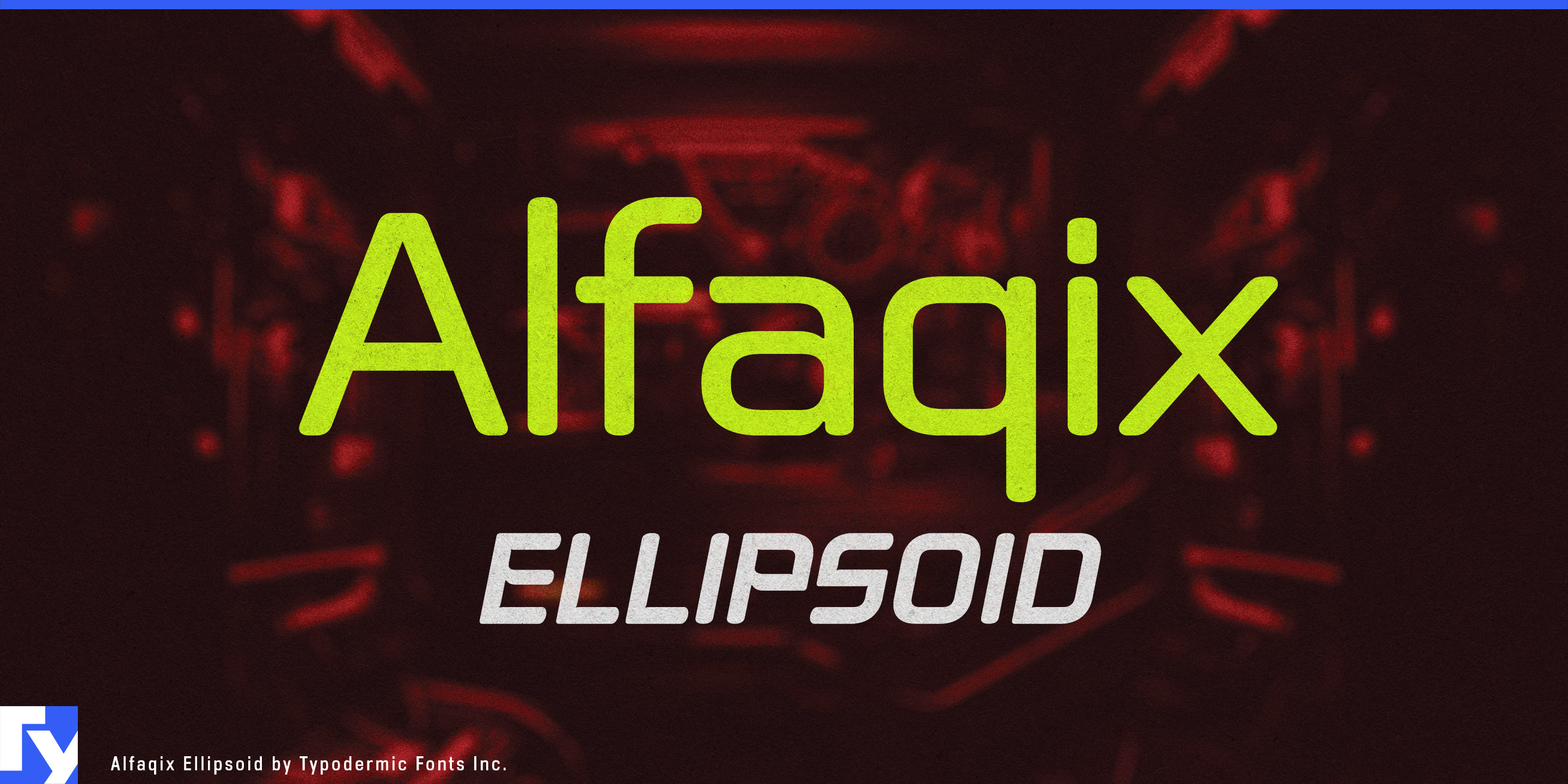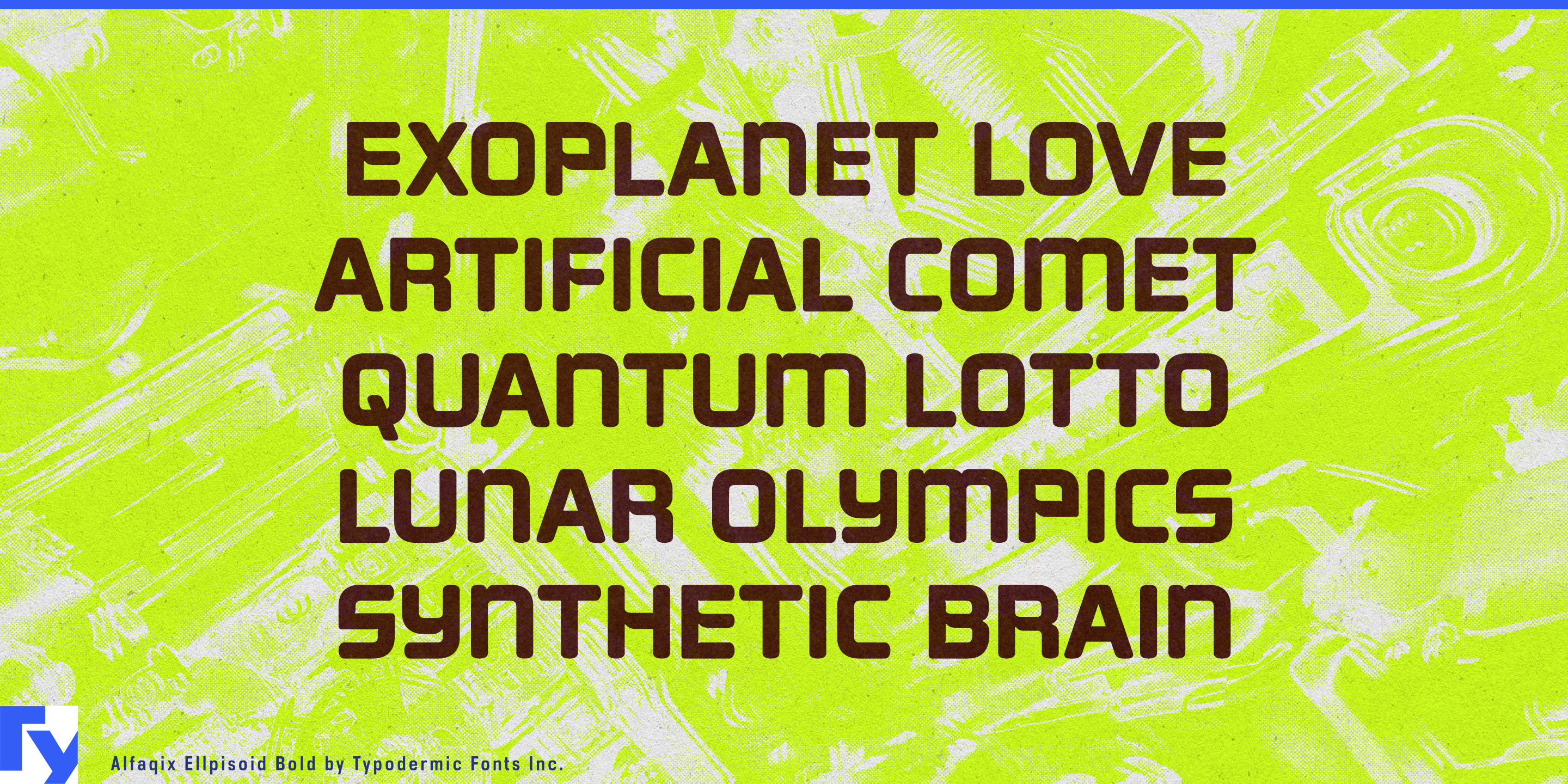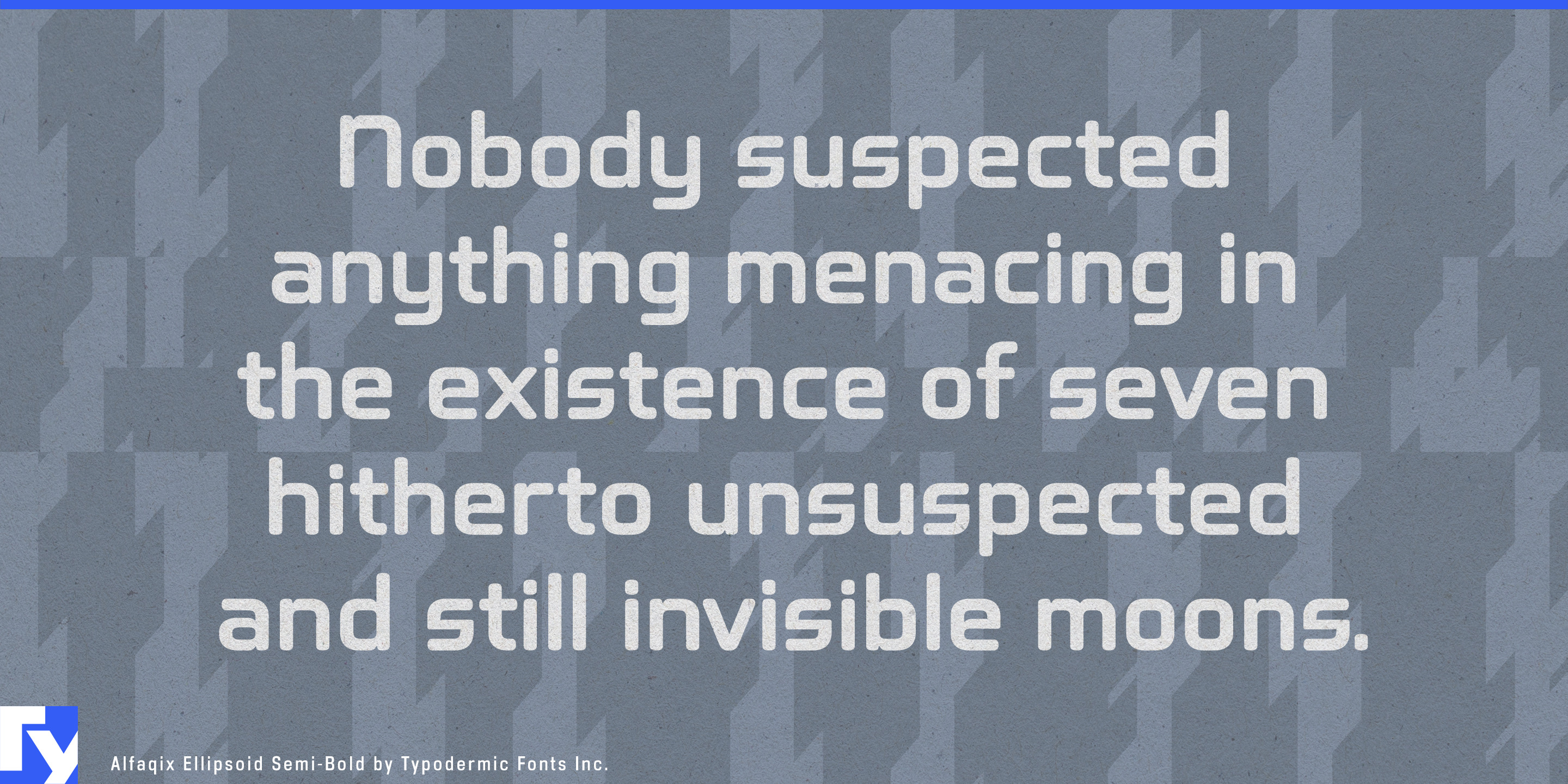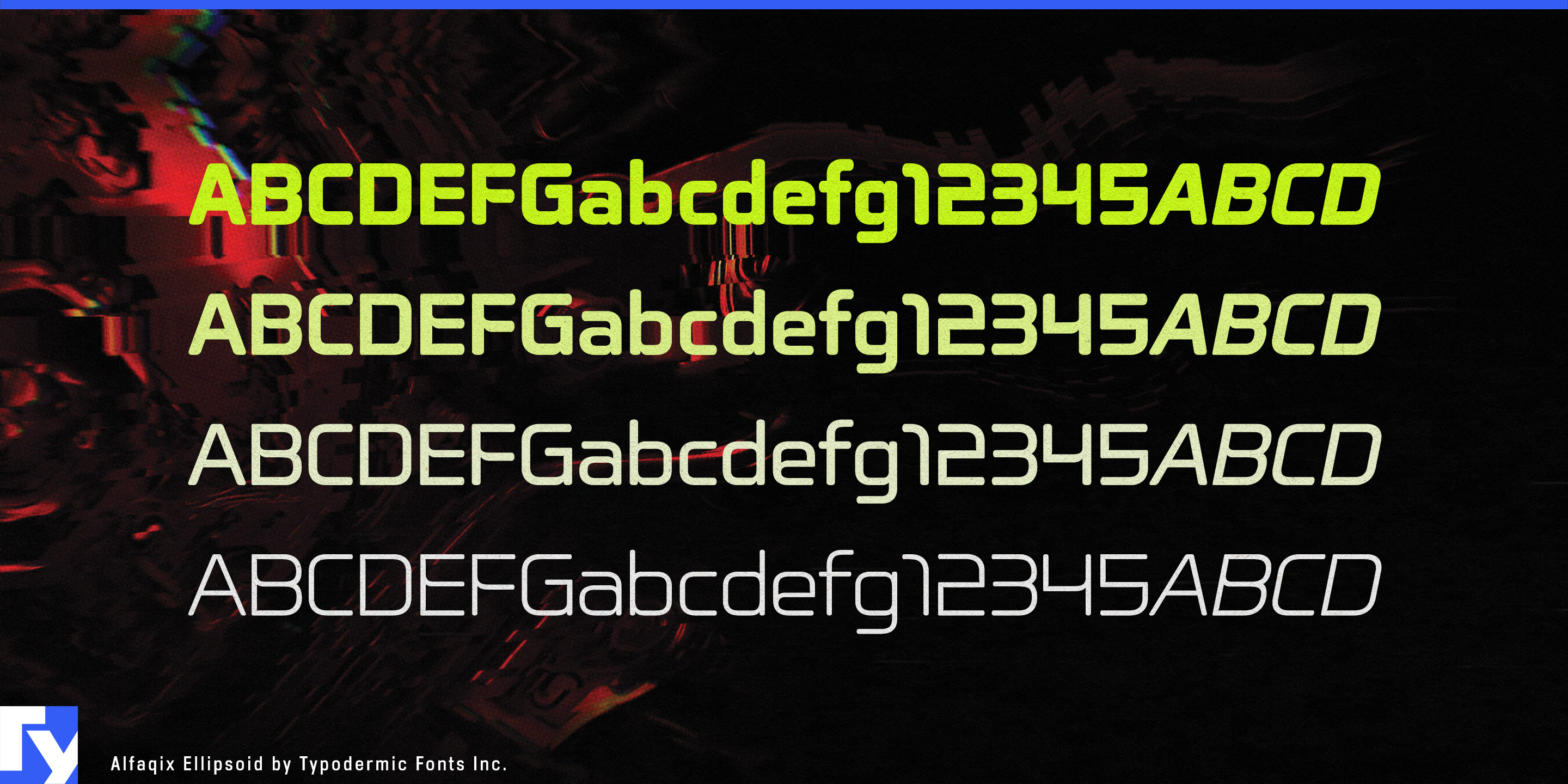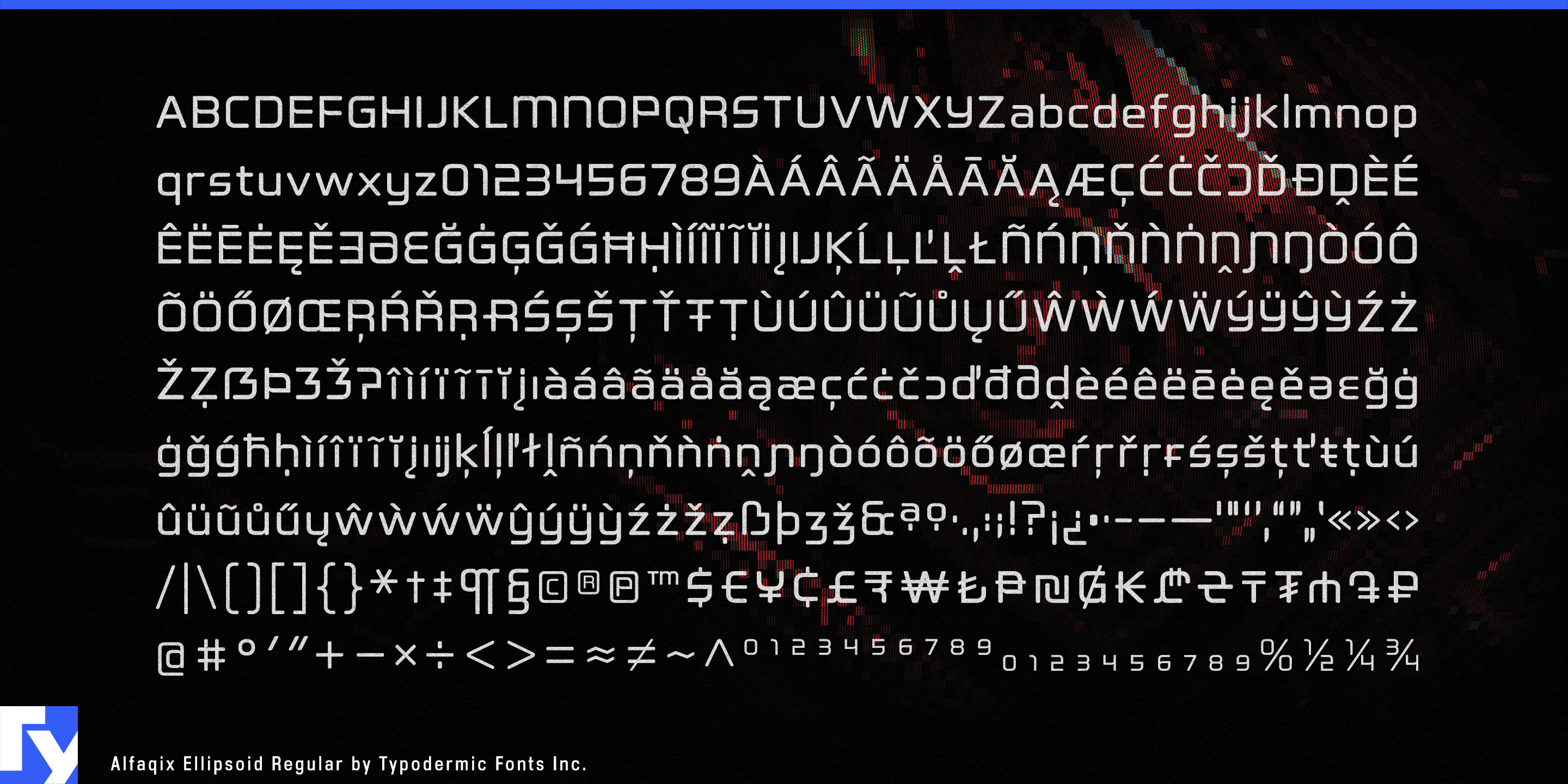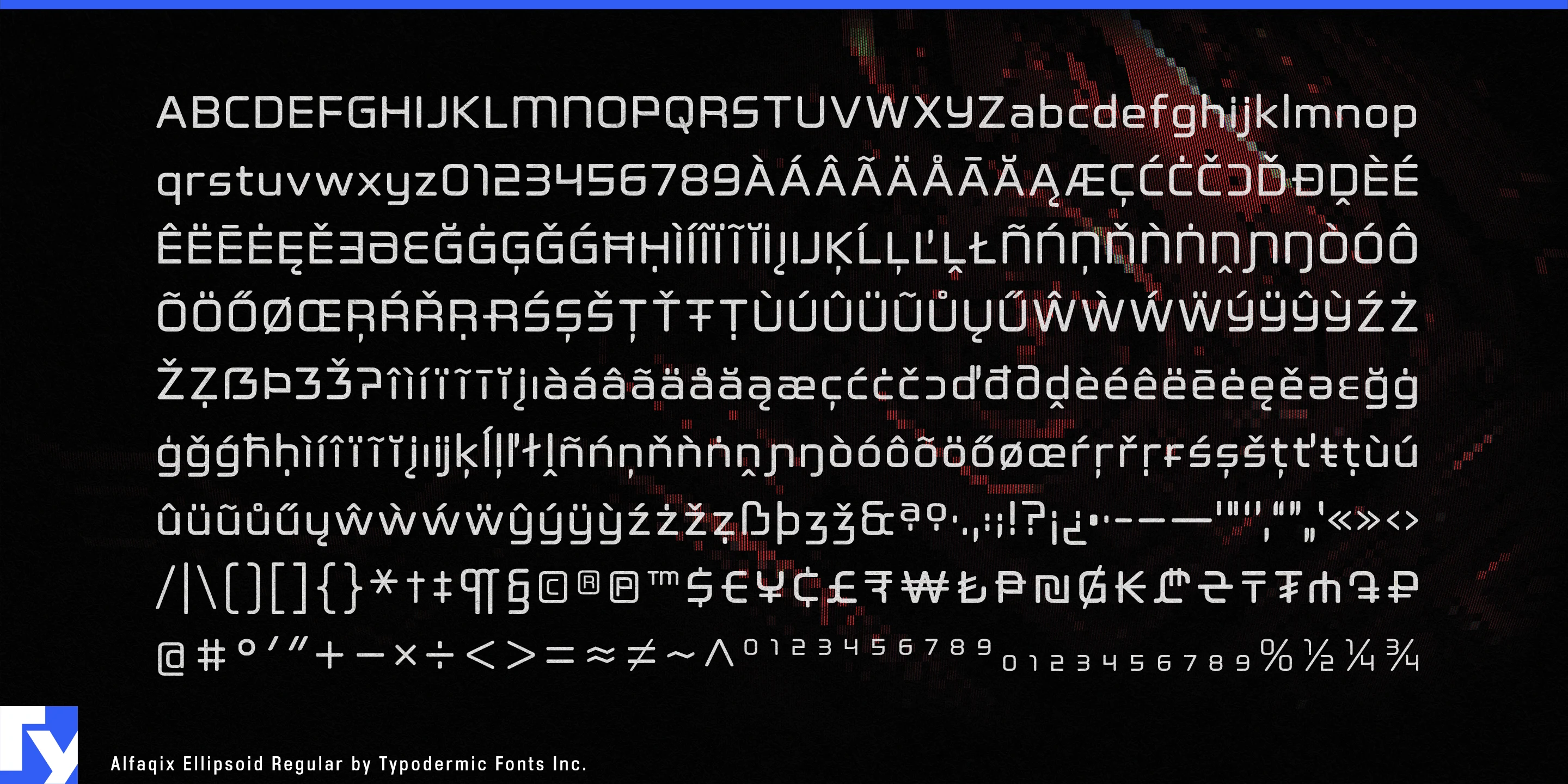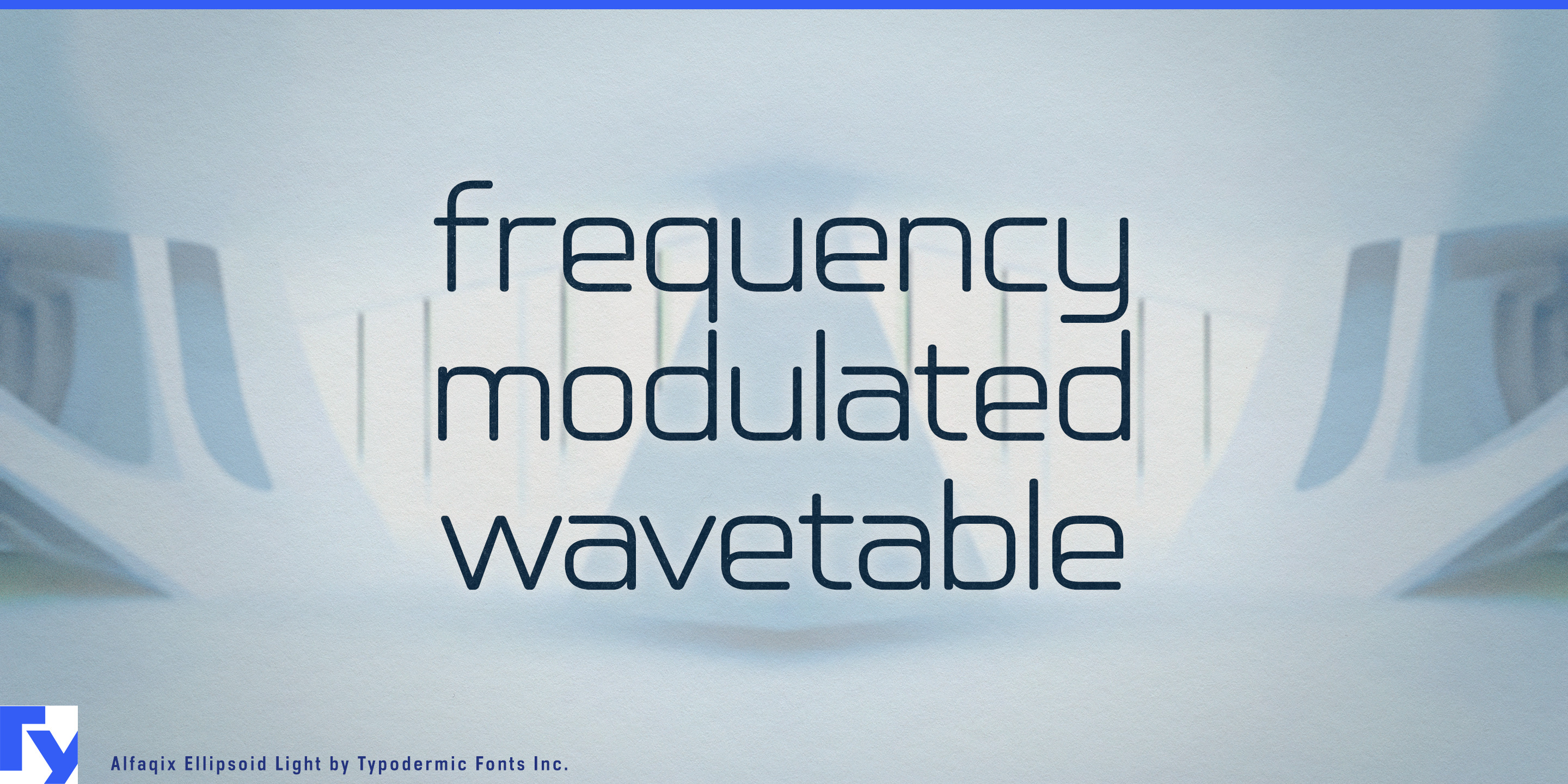
Alfaqix Ellipsoid
Consumer technology has a different typographic problem from industrial equipment. A smart thermostat, sleep tracker, wireless speaker or electric scooter still needs to look advanced, but its lettering also has to belong in a home, on a wrist or in someone’s hand. Push too far toward technical typography and the product starts to resemble laboratory equipment; soften everything too much and the technology disappears. Alfaqix Ellipsoid occupies the useful territory between those extremes.
Ellipsoid is built from the same modular framework as the other Alfaqix families, but its rounded stroke endings give the geometry a less severe character. That balance makes it particularly suitable for consumer electronics whose physical design already relies on curved housings, softened rectangles and molded surfaces.
Smart-home products are a natural fit. Air purifiers, robot vacuums, thermostats, home-energy monitors, mesh Wi-Fi systems and connected appliances need typography for product names, model families, packaging, app headings and mode names. Ellipsoid can establish a technological identity across those roles without making a domestic product look like factory equipment.
Personal health and wellness technology presents a similar challenge. Sleep trackers, fitness wearables, massage devices, electric toothbrushes, skincare tools and home diagnostic products often sit somewhere between medical equipment and consumer electronics. Ellipsoid keeps the typography connected to technology without pushing the product toward clinical austerity. Heavier weights can carry device and product names, while lighter styles extend the same language into feature headings and supporting display text.
Consumer audio and personal mobility broaden that territory. Wireless earbuds, headphones, portable speakers, e-bikes, electric scooters and smart helmets combine sophisticated engineering with products designed for everyday use. Ellipsoid can move from model names and equipment graphics to packaging, launch material and companion-app headings while echoing the softened geometry of the hardware itself.
As the rounded member of the Alfaqix modular family, Ellipsoid is especially useful when technology has to feel engineered without feeling industrial. It suits the device on the kitchen counter, the wearable on your wrist, the speaker on the shelf and the electric vehicle you take out the door.